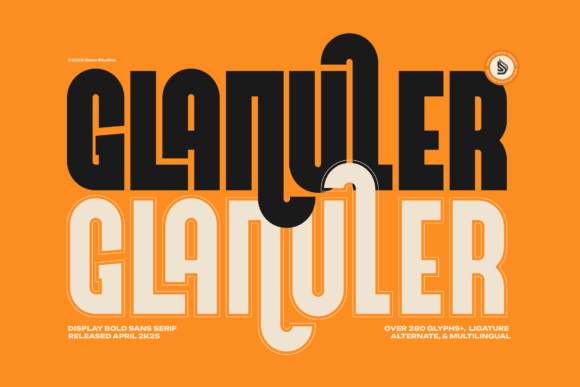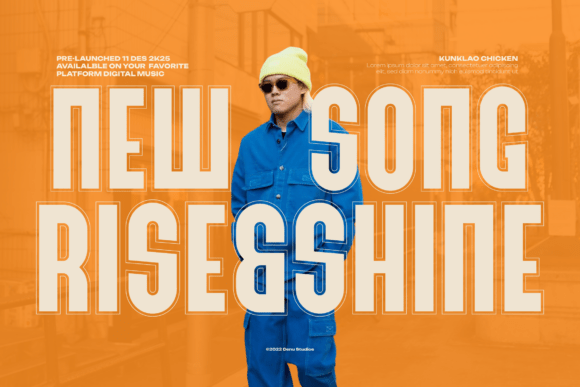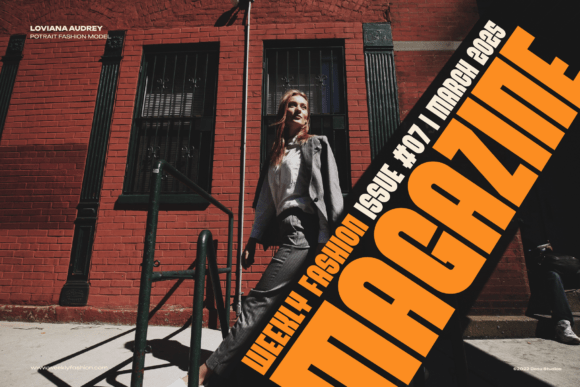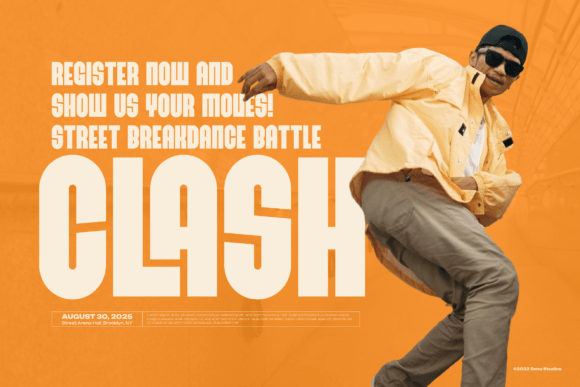
Glanuler Font
About the Glanuler Font
Crafted with precision, the Glanuler Font is ready to bring your ideas to life. Glanuler is a bold sans serif display font that commands attention with its structured lines, futuristic curves, and high-impact letterforms. Featuring a modern aesthetic with unique ligatures and over 280 glyphs, it’s perfect for branding, editorial headlines, tech projects, and fashion-forward visuals.
Glanuler excels in large-scale applications such as headlines, logos, and posters where its bold forms make a strong visual statement. It’s ideal for projects needing a futuristic or high-tech feel, particularly in branding for tech companies, gaming, or science-related fields. Avoid using Glanuler for body text or extended reading; its weight and x-height aren’t optimized for readability in smaller sizes.
Its strong, modern personality pairs well with clean sans-serifs like Open Sans for body copy, or a geometric sans-serif like Futura for a more structured feel. For a touch of contrast and elegance, consider pairing it with a classic serif like Garamond or a delicate script font like Pacifico, depending on the desired level of formality.
Glanuler’s core personality is bold and assertive, yet undeniably modern. It conveys confidence and innovation, making it a powerful choice for brands seeking to project a forward-thinking image.
Glanuler Font Usage Examples
Glanuler Font Example